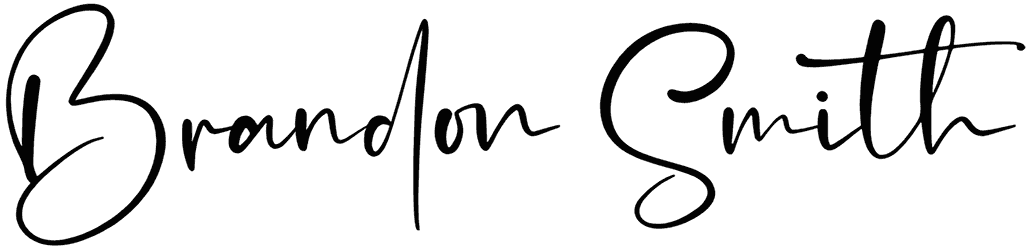
Brandon Smith Font
Brandon Smith is a font that gives off a stylish and serious vibe to your text and gives you two options of regular and italic, to choose from. This handwritten font contains smooth and curly characters with a continuous effect that presents a feminine look. You can use this font to write documentary books, movie titles, shop signs, and fashion headlines.